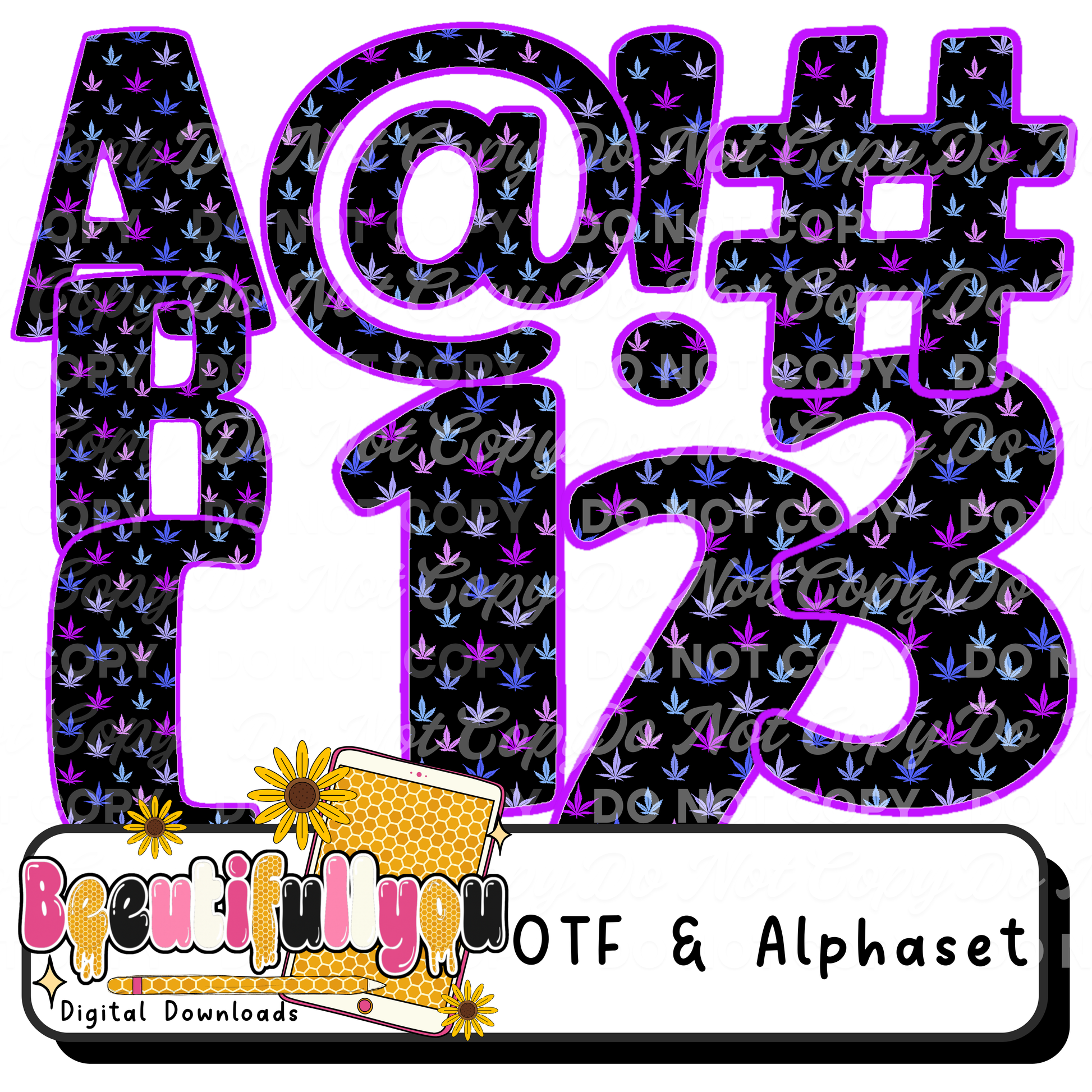
420 Weed Alphabet OTF Font | Cannabis Letter Font | Edgy Retro Alphabet Download | Commercial Use
This bold and edgy 420-inspired alphabet font features a unique cannabis leaf pattern with a vibrant outline — perfect for creating eye-catching, trendy designs your customers will LOVE.
Whether you're designing for 420 collections, streetwear vibes, or bold statement graphics, this font brings the attitude 💜
✔ Full Alphabet Set (A–Z)
✔ Numbers (0–9)
✔ Super trendy niche design
✔ Eye-catching pattern + bold outline